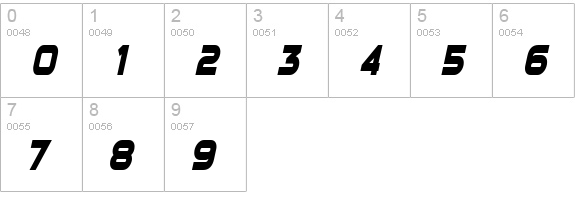
Sui Generis Condensed Bold Italic is a strong, high-contrast, condensed-width, italic variant in the Sui typeface family \xE2\x80\x94 well suited to headlines, attention-grabbing titles, and strong calls-to-action.
Sui Generis Condensed Bold Italic font is a sleek and modern typeface that exudes confidence and sophistication. Its bold and italic design adds a touch of elegance to any project, making it perfect for headlines, titles, and branding materials. The condensed style of this font allows for efficient use of space, making it ideal for designs that require a sleek and streamlined look. Best of all, Sui Generis Condensed Bold Italic font is available for free download at FontsMarket.com. This means that you can easily add this stylish typeface to your collection without any cost. Whether you're a designer looking to elevate your work or a business owner in need of a polished font for your branding, Sui Generis Condensed Bold Italic font is a versatile and eye-catching choice that won't break the bank. Download it today and see how it can enhance your design projects!